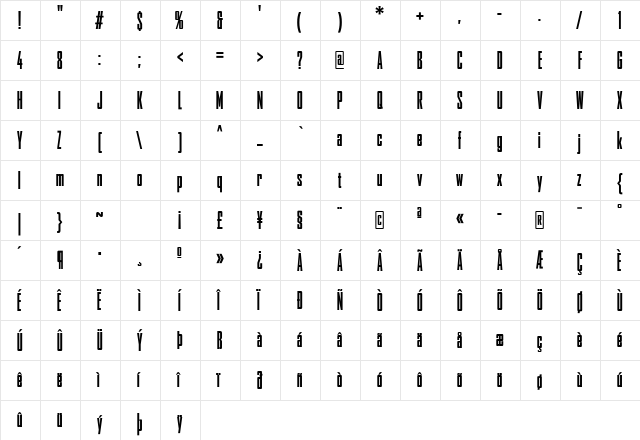
AgencyFB Bold Comp Regular Font Preview
AgencyFB Bold Comp Regular
AgencyFB Bold Comp Regular Font Details
| Foundry | The Font Bureau, Inc. |
Design Context for AgencyFB Bold Comp Typeface
AgencyFB Bold Comp offers clean, dependable letterforms without strong stylistic allegiance, making it a practical choice for designers who need flexibility. The heavy weight commands attention and anchors typographic hierarchies.